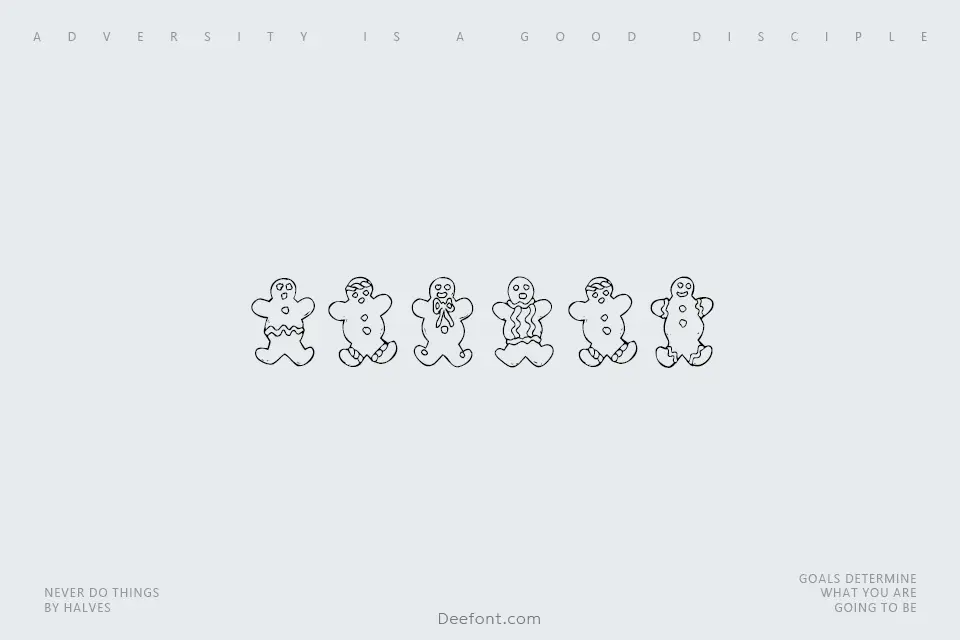
Destiny’s Gingerbread Dings Font
Destiny’s Gingerbread Dings is a whimsical and festive dingbat font featuring charming gingerbread man illustrations in place of traditional characters. Each character displays a unique gingerbread figure with detailed expressions and decorative elements, making it perfect for holiday-themed designs. This decorative typeface adds a joyful, lighthearted aesthetic to seasonal projects, greeting cards, and festive marketing materials, delivering playful charm without compromising visual impact in creative applications.